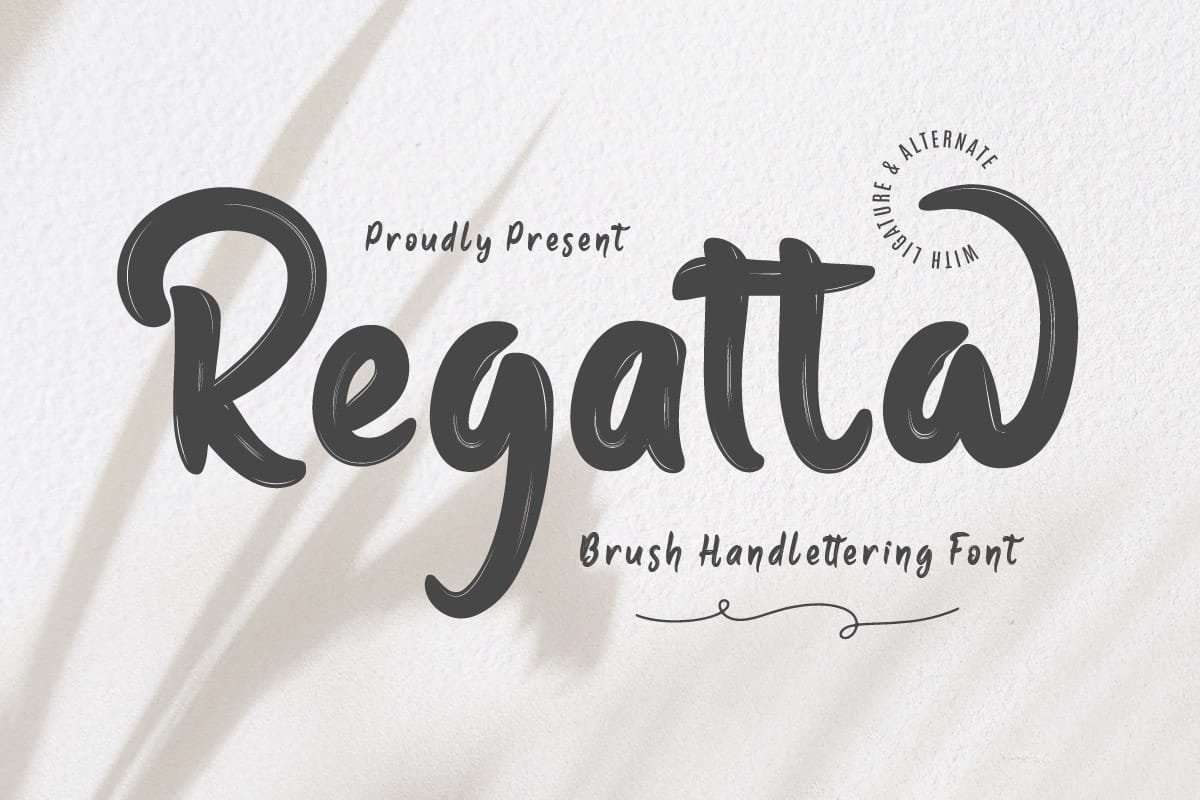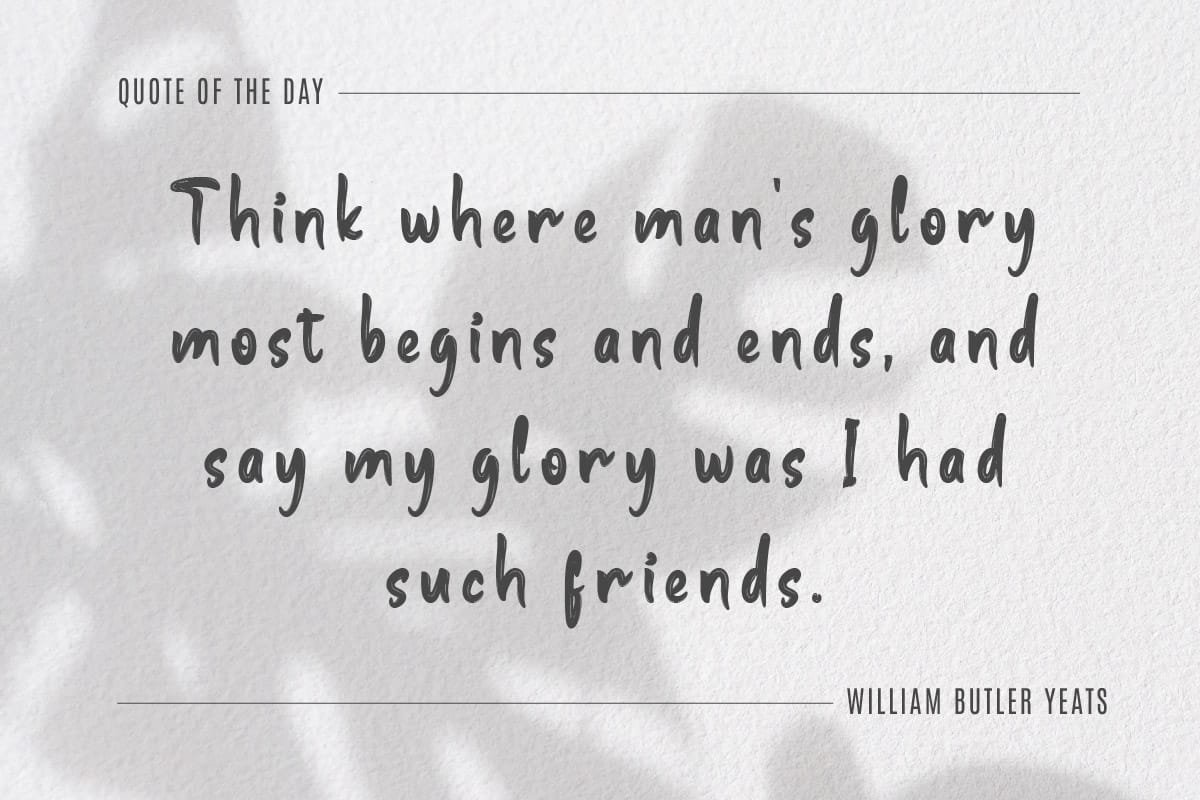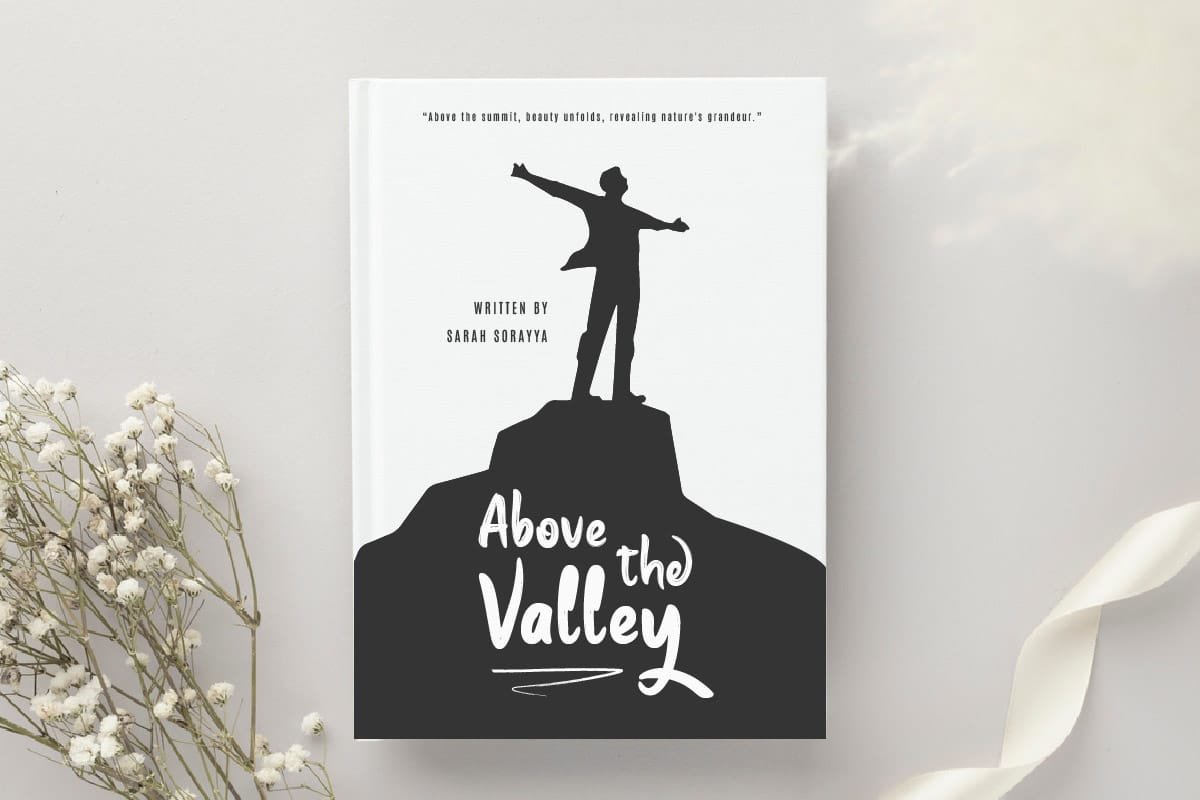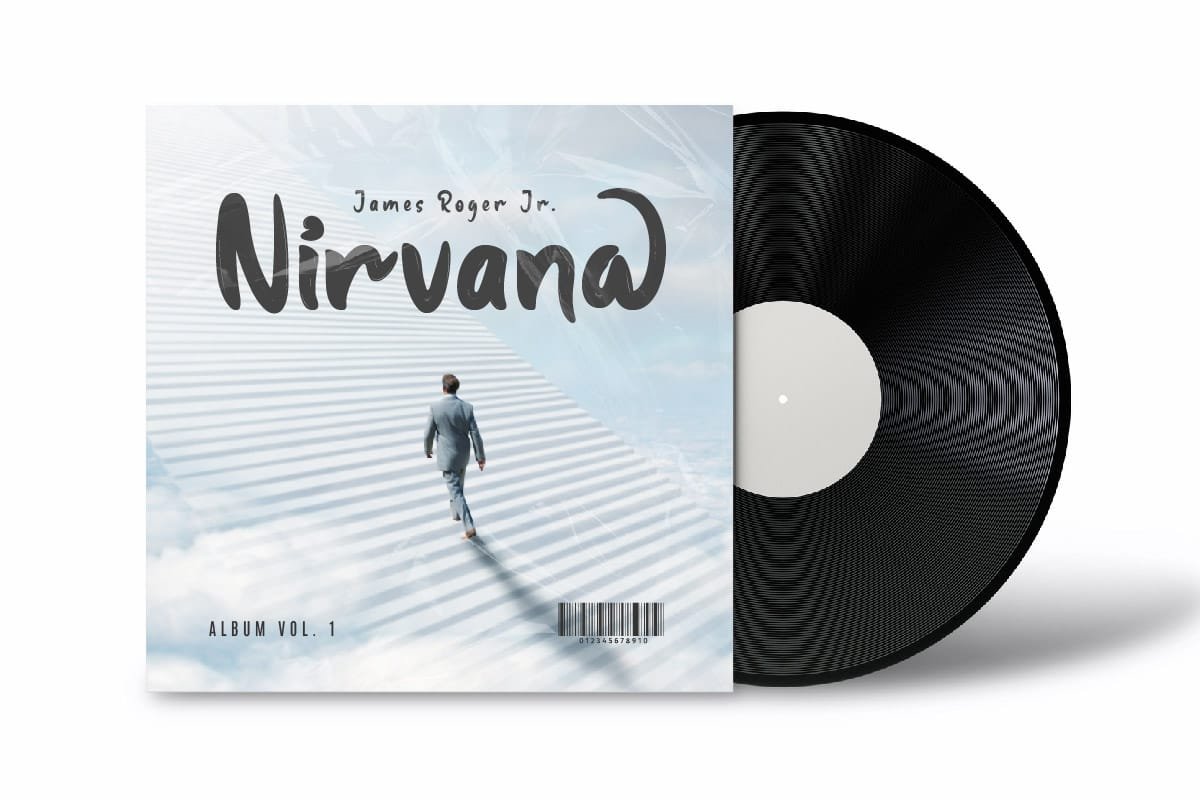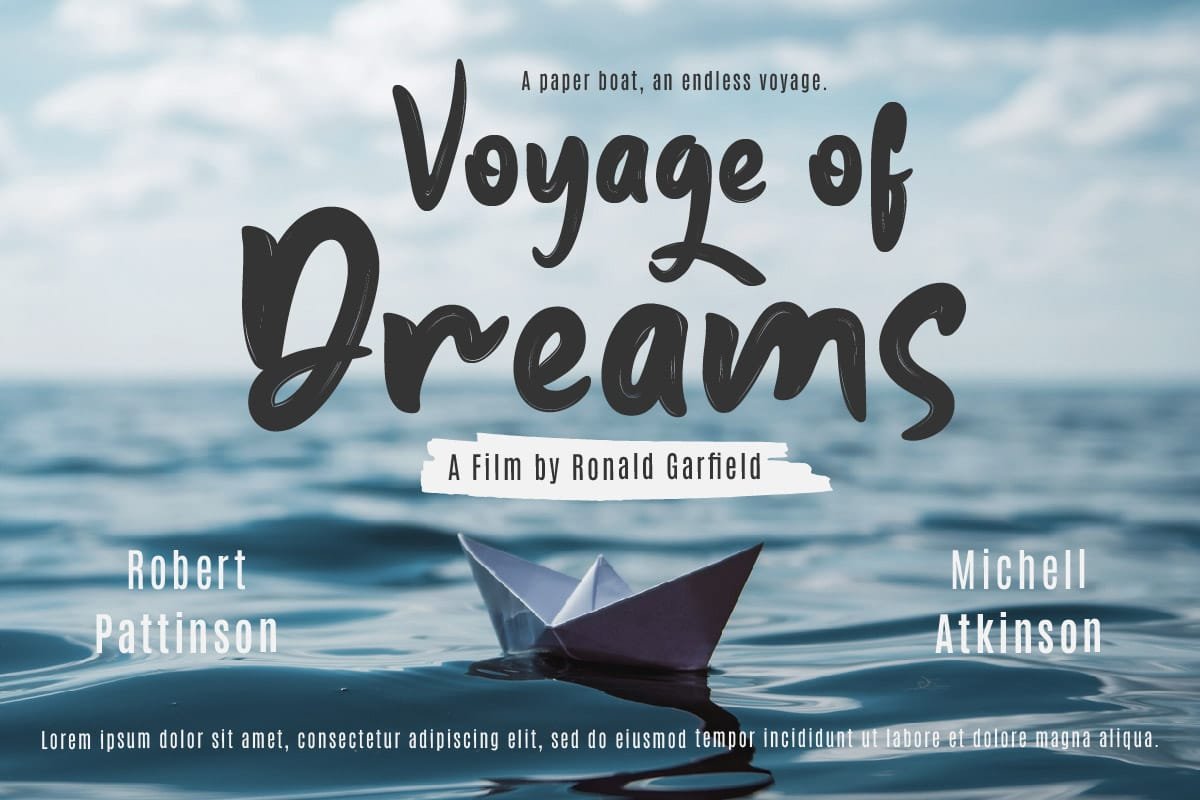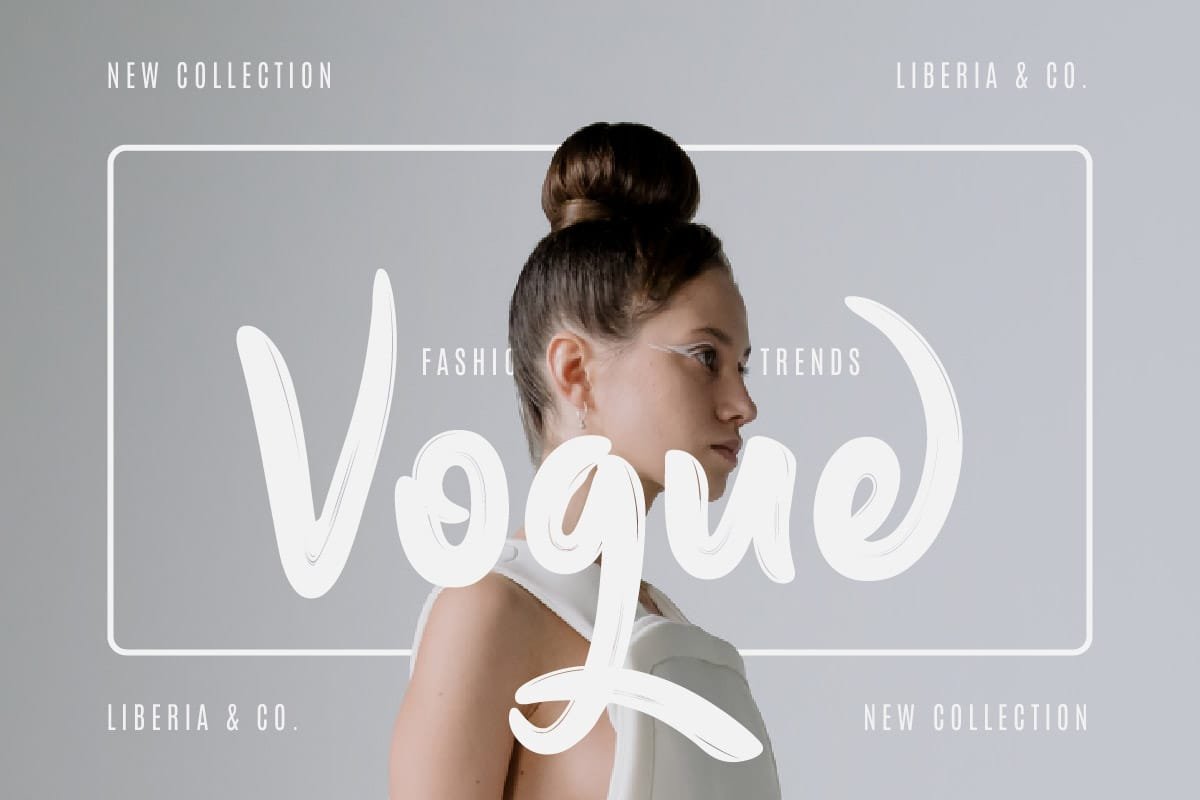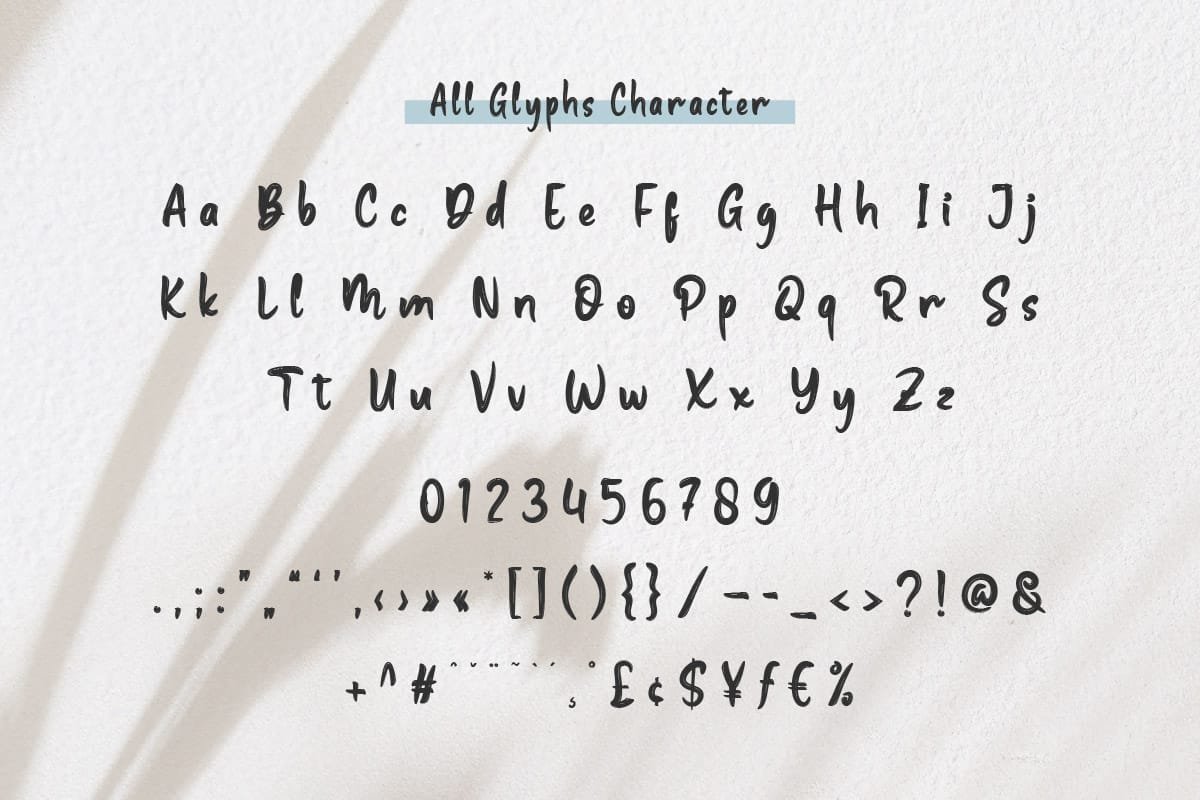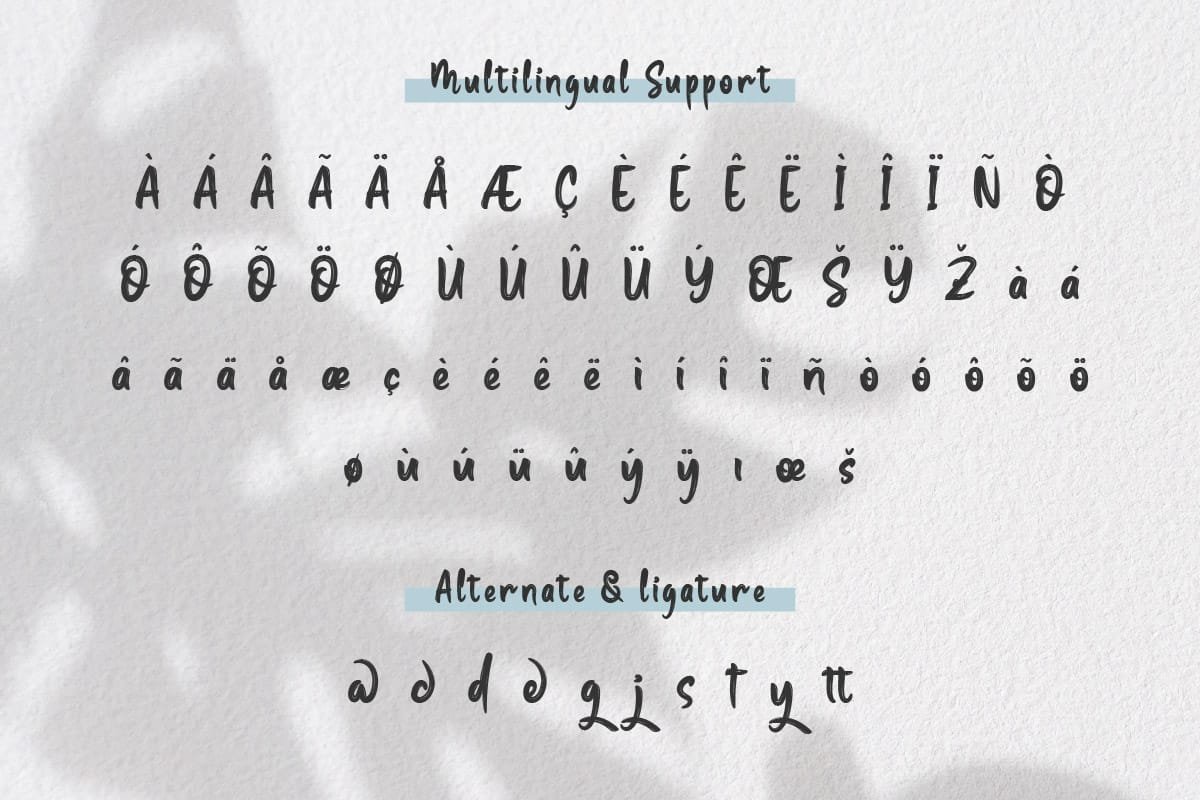
Regatta is a brush-written font that captures the spirit of the sea. Its bold, dynamic characters are perfect for designs that require a touch of excitement and energy. Whether you’re creating a logo for a nautical brand or a headline for a sailing blog, Regatta adds a touch of the sea that is sure to captivate your audience.